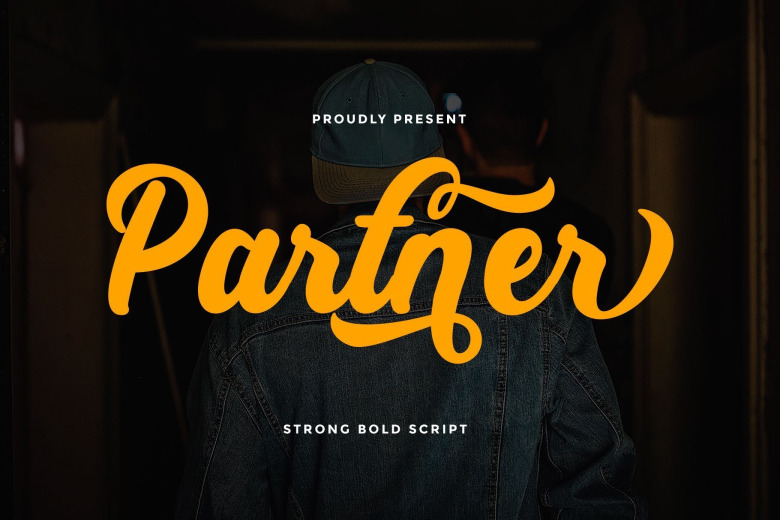
Partner Font
Partner Bold Script Font is a modern handwritten typeface. It brings a beautiful and attractive typeface. Made from font designer named Rantautype. This typeface is Inspired by Vintage style and combined with Hand Lettering style. Every single curve has my personality touch.
It is great for making logotype, branding, promotional ads, quotes design, packaging, t-shirt design. merchandise, poster, merchandise, social media and much more. Coming up with more than 100+ stylistic alternates, you can make so many alternative choices based in your creativity. Partner is here to make your work or your business to high level!